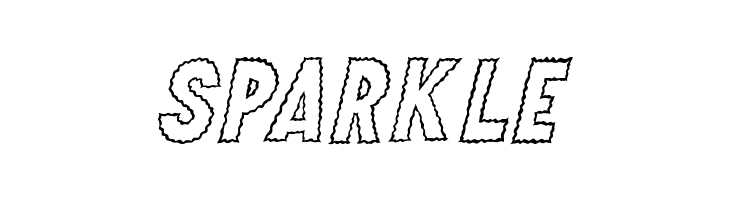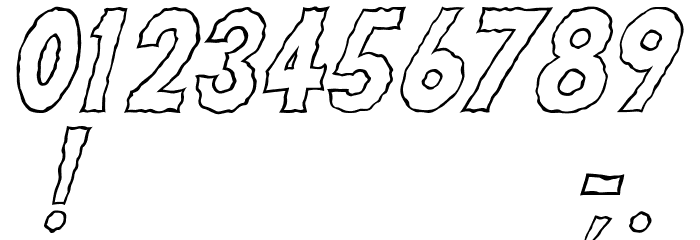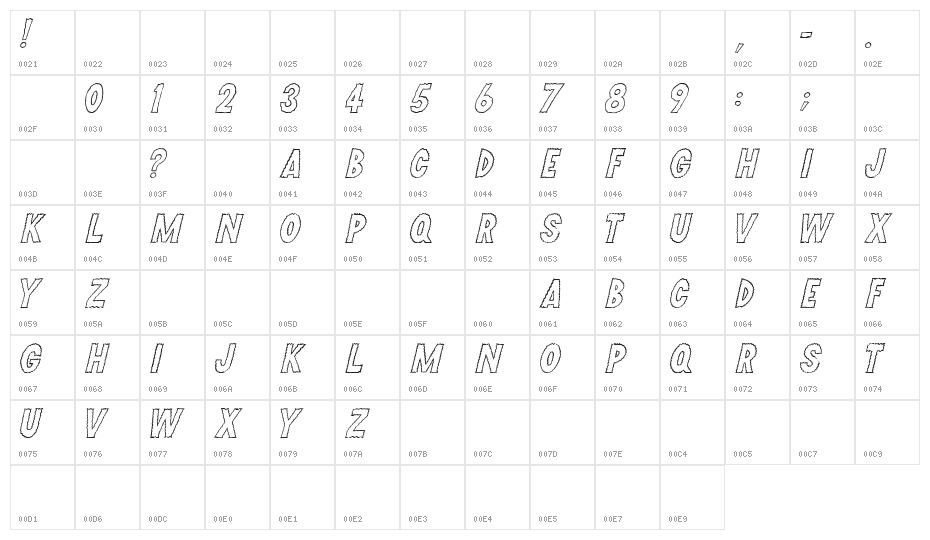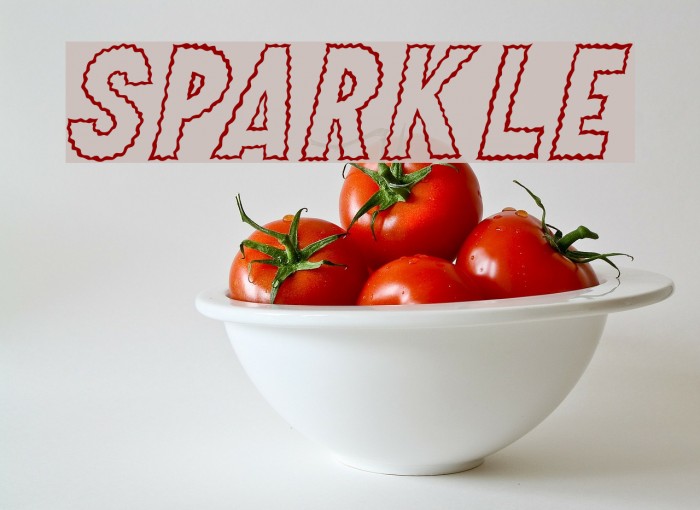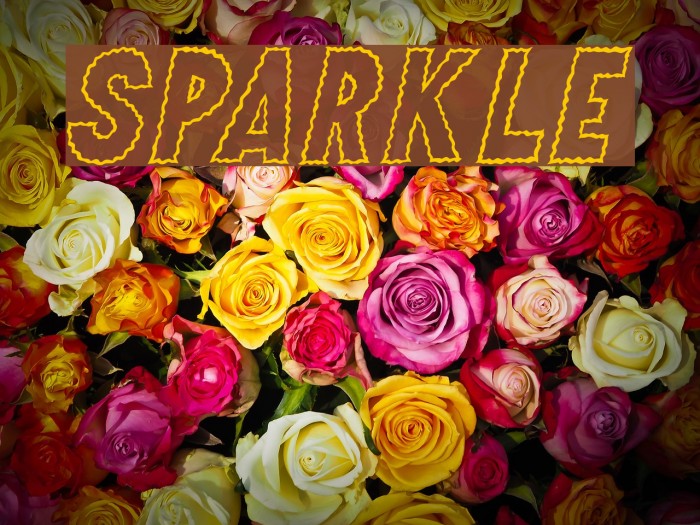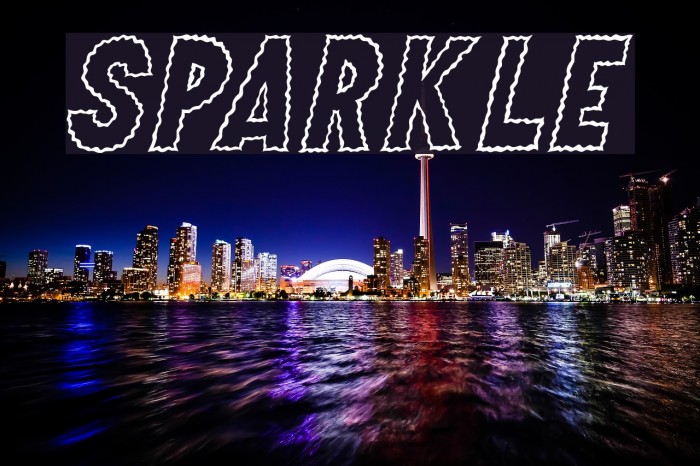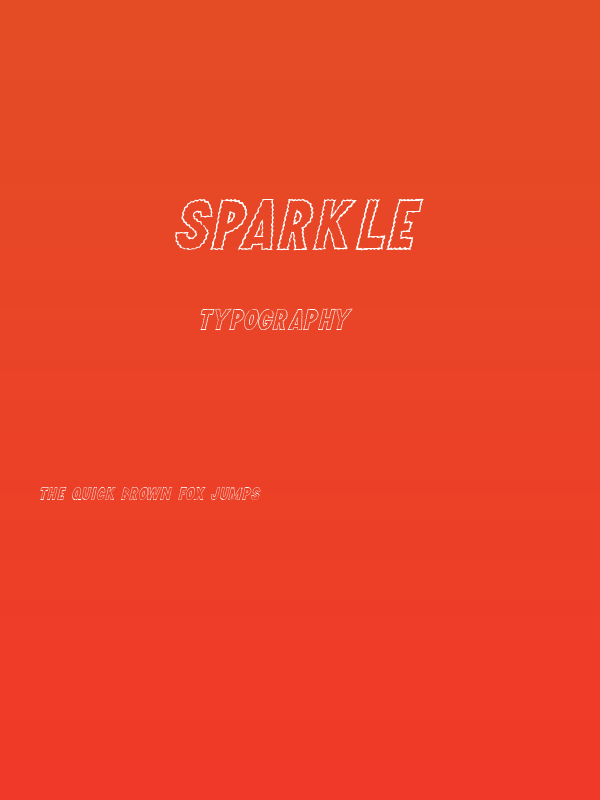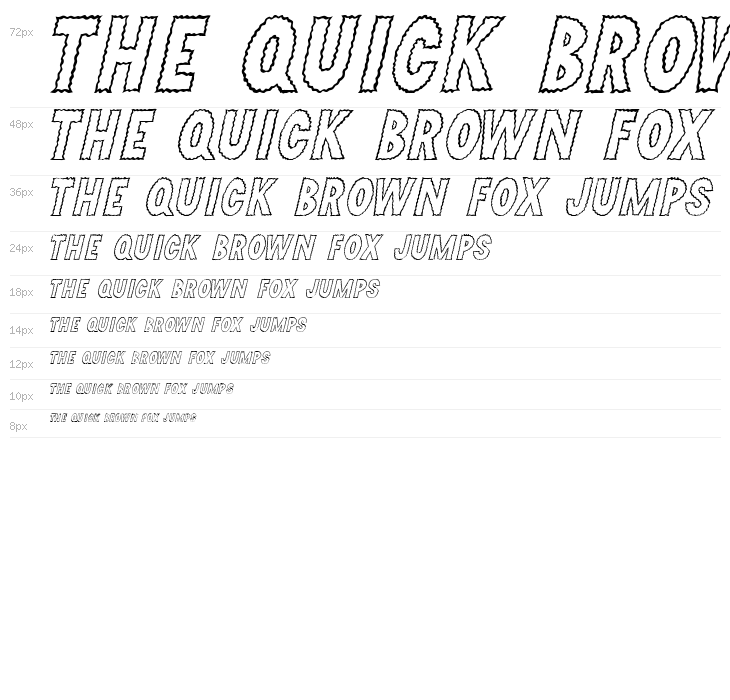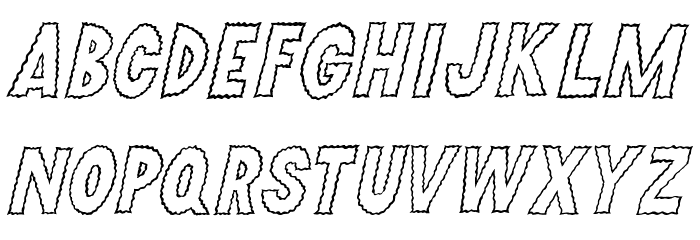
Sparkle Font
Sparkle Description
This font features a bold, playful design with a zigzag pattern running through each character, creating a dynamic and energetic appearance. The uppercase and lowercase letters maintain a consistent style, with a slight slant that adds a sense of movement. The numbers and special characters are designed to match the lively aesthetic, making them suitable for attention-grabbing headlines or creative projects. The overall look is both modern and whimsical, perfect for projects that require a touch of fun and excitement.
| Overall Style | Playful, Modern |
| Proposed Projects | Ideal for children's book covers, playful branding, event posters, and creative digital content. |